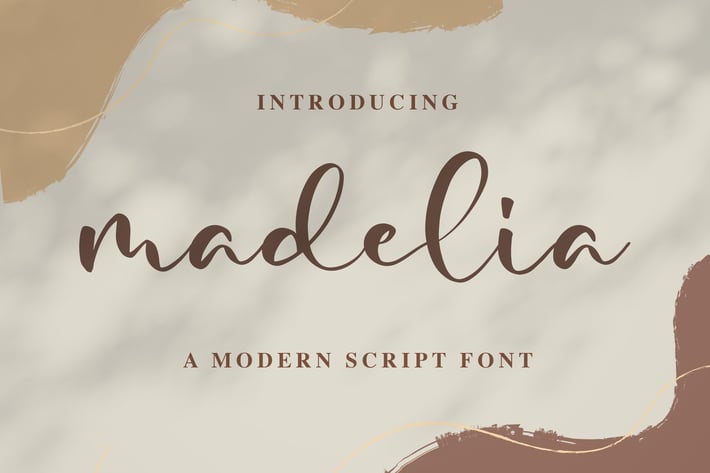
Madelia Modern Script Font
Introducing of our new product the name is Madelia Modern Script Font. Madelia inspired by Modern Calligraphy this font is a fun theme very good for display, valentine theme, wedding, logotype and etc